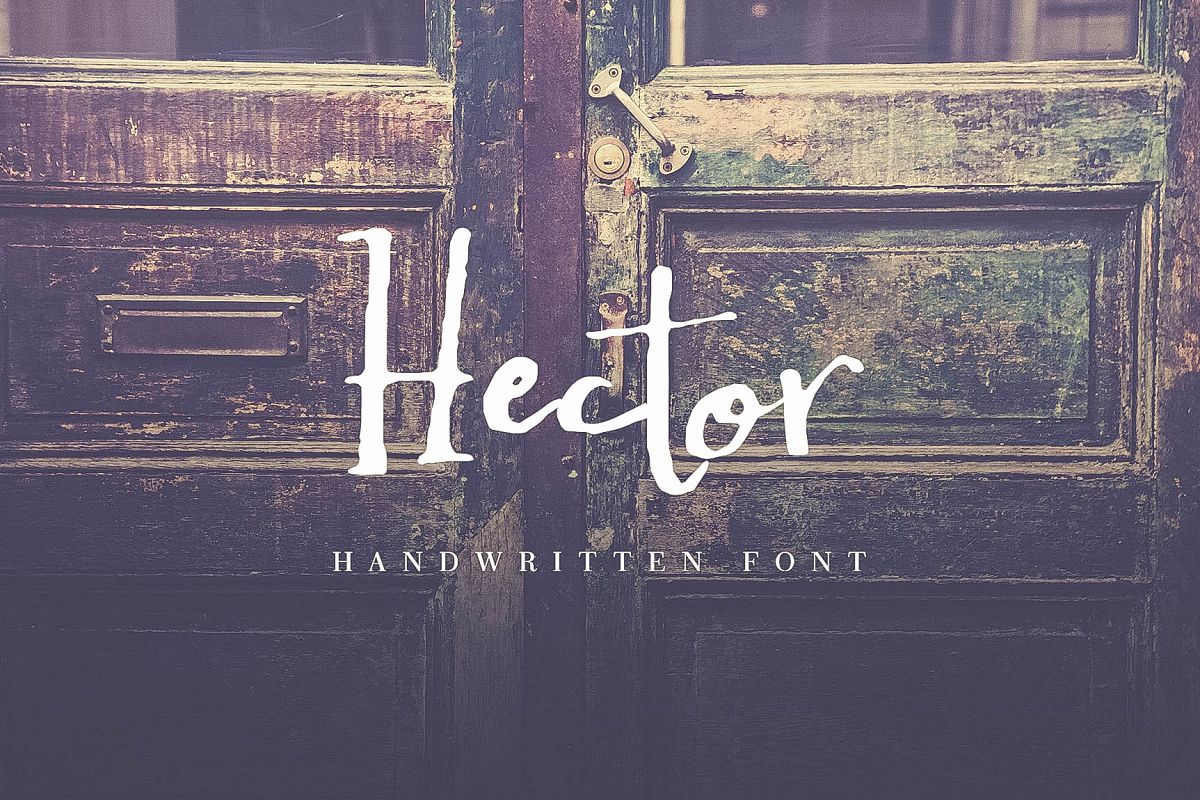
Hector
Introducing Hector handwritten font! Hector is a handwritten script font. It allows you to create stunning and easy hand-lettering in an instant. Ideal for the logo, quotes, wedding, product label/packaging, fashion, letter, advertising, invitation, poster, merchandise, greeting cards, etc